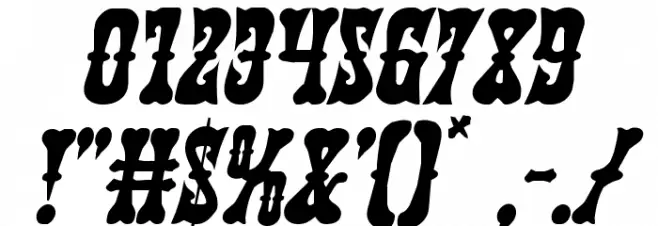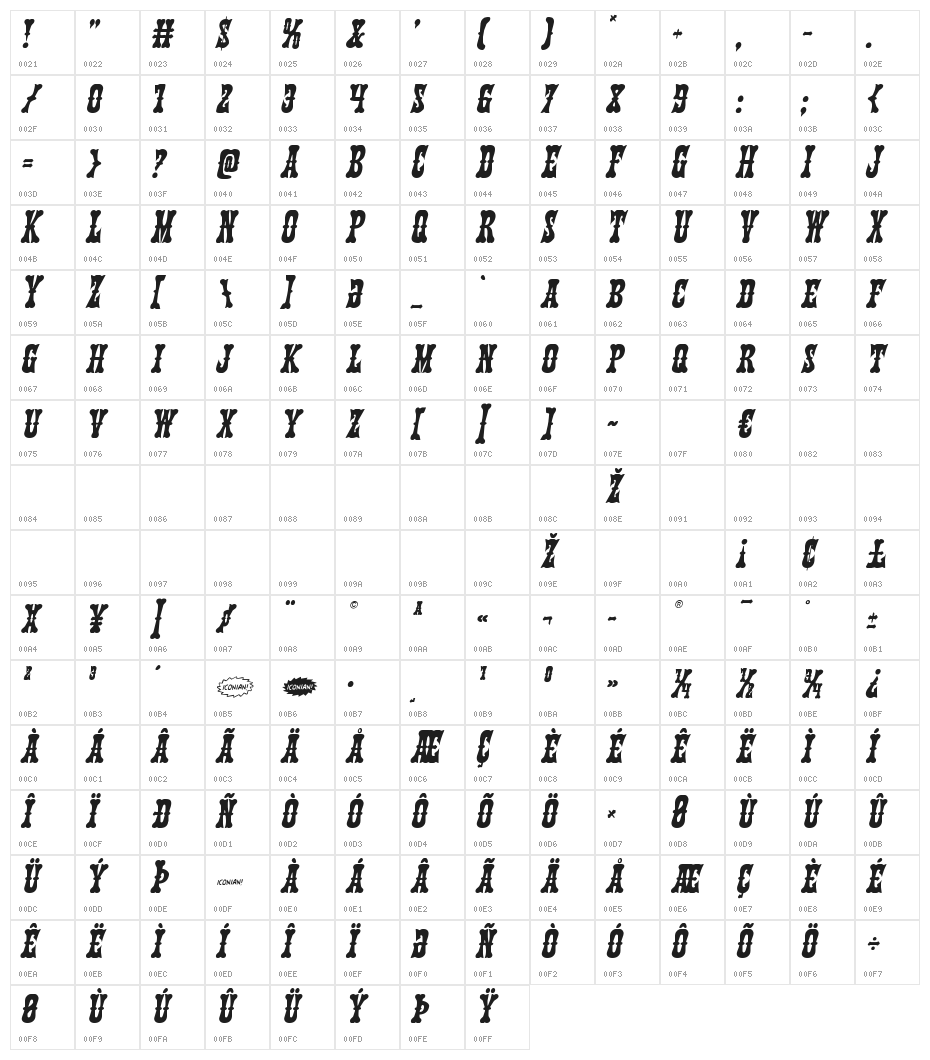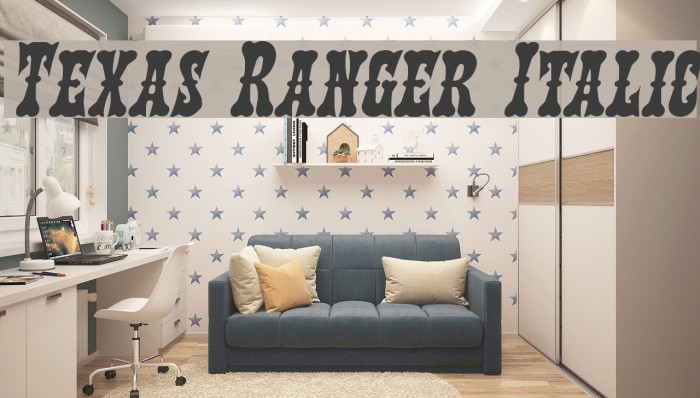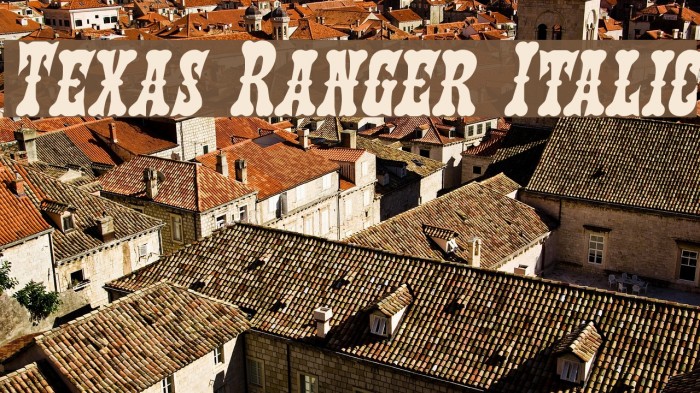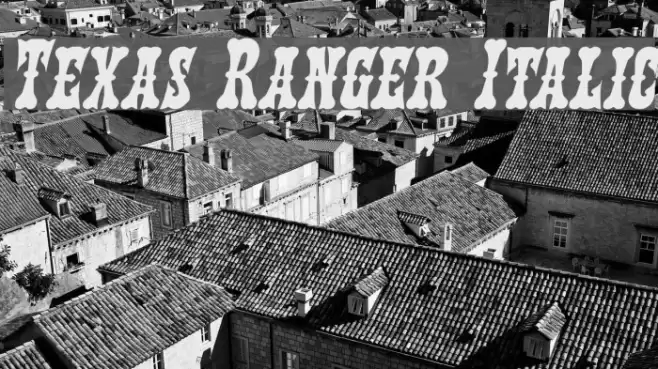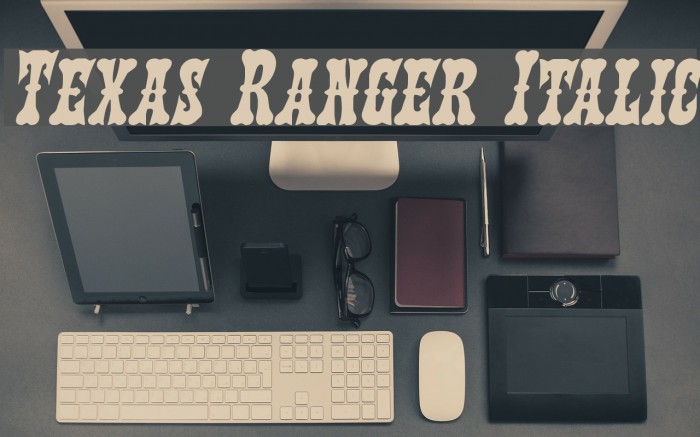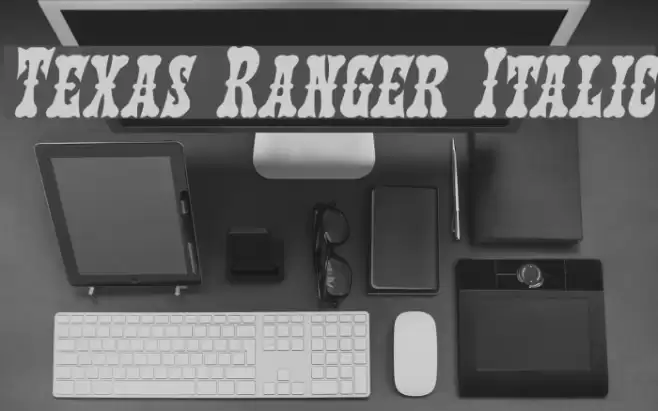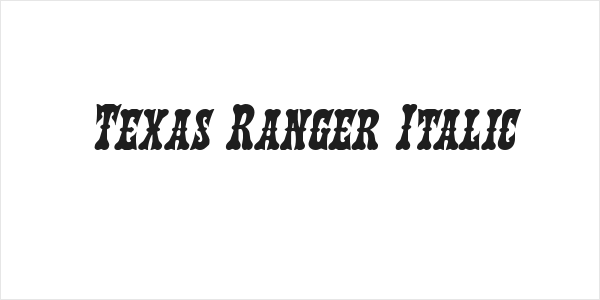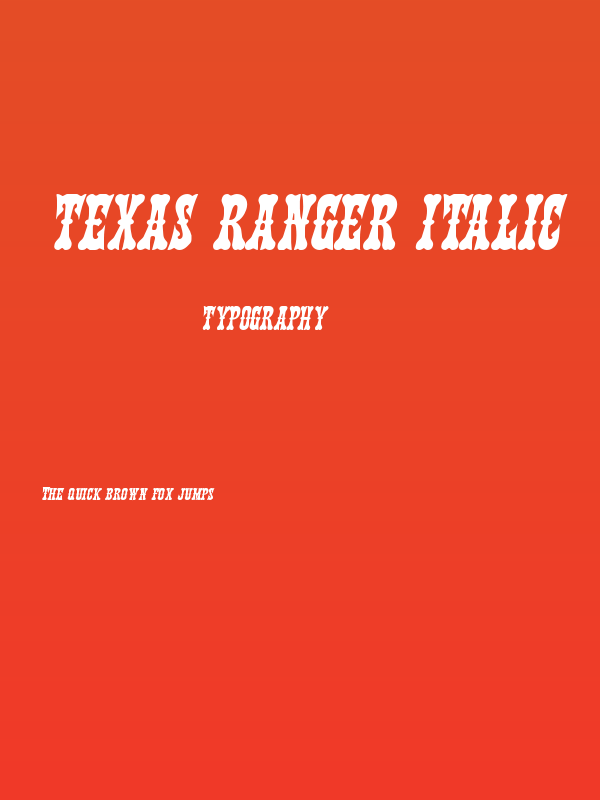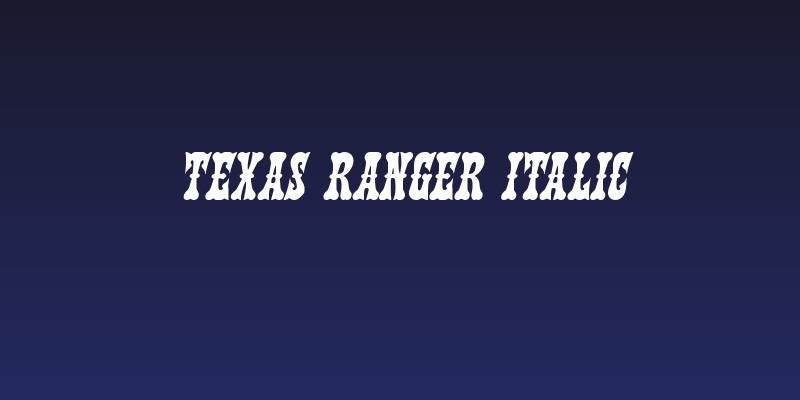
Texas Ranger Italic Font
Texas Ranger Italic Description
This font features a bold and dynamic style with a distinct Western flair. The characters are heavily stylized, with thick strokes and sharp serifs that give it a rugged, adventurous feel. The italic slant adds a sense of motion and urgency, making it ideal for designs that require a strong, impactful presence. The uppercase and lowercase letters maintain a consistent weight, while the numbers and special characters are equally bold and expressive. This font is perfect for creating eye-catching headlines, posters, and branding materials that need a touch of the Wild West.
| Proposed Projects | Ideal for Western-themed posters, branding, and eye-catching headlines. |